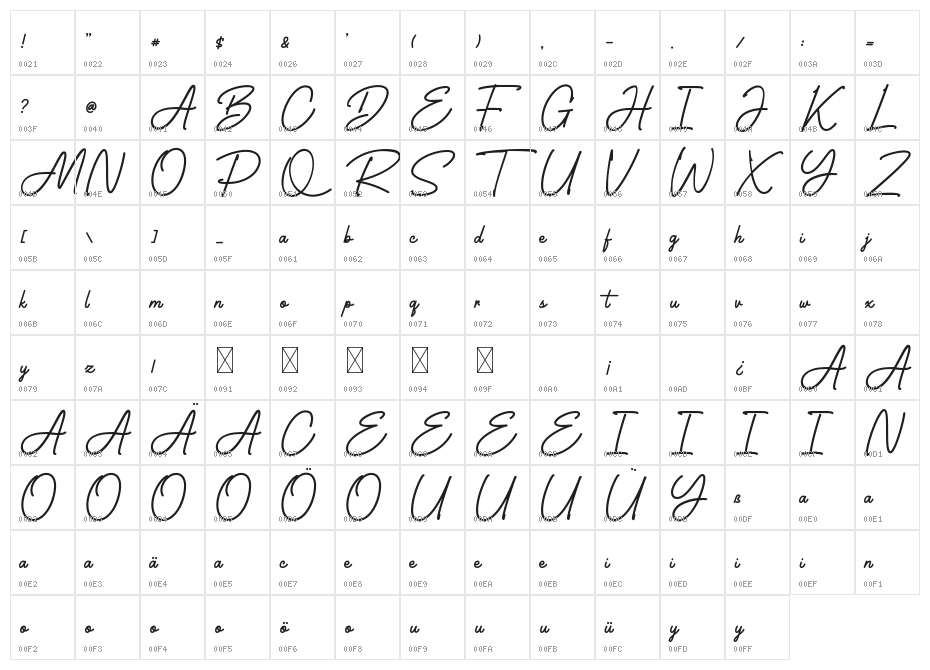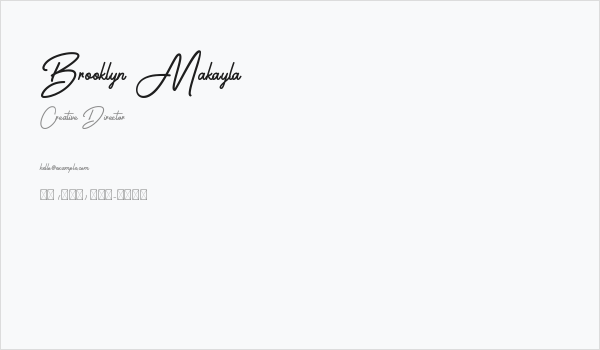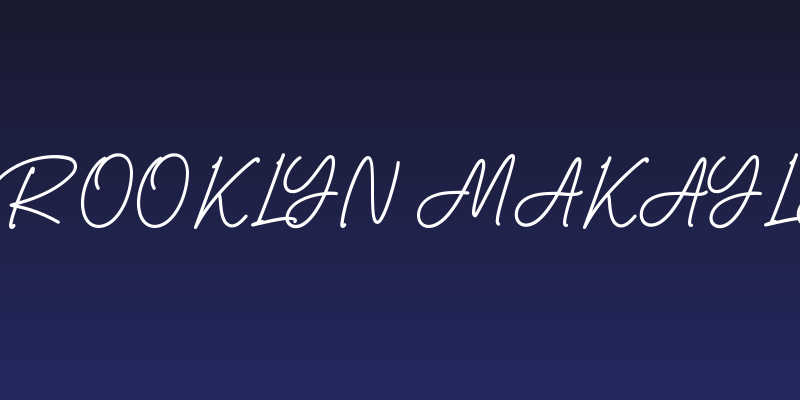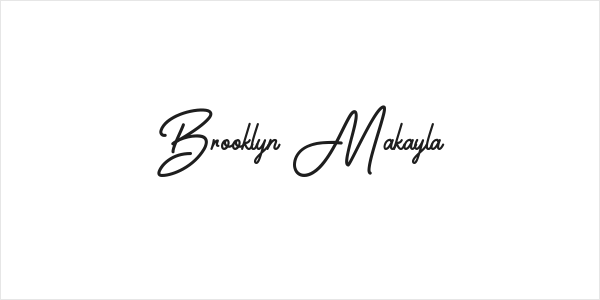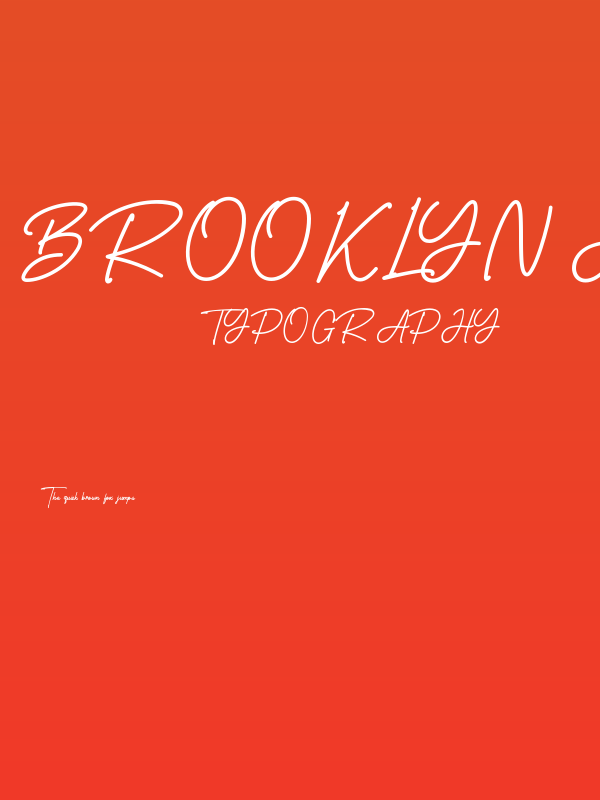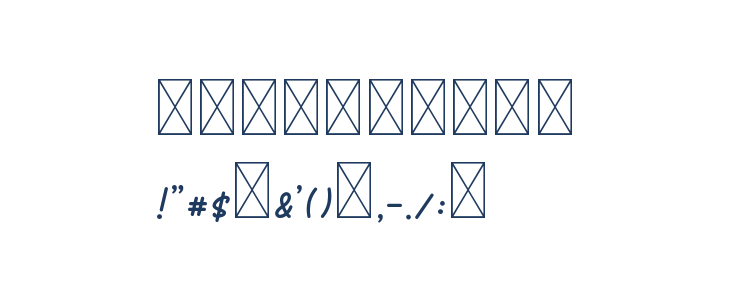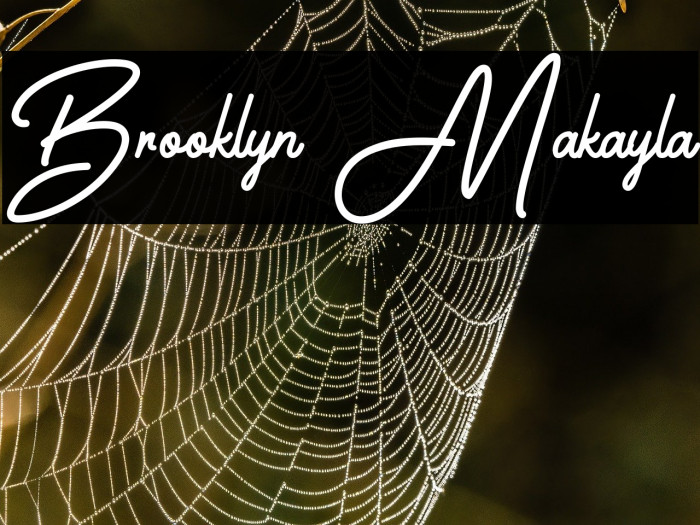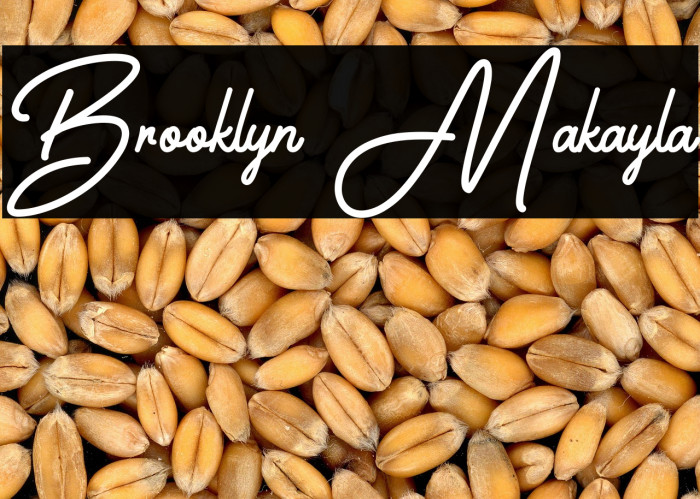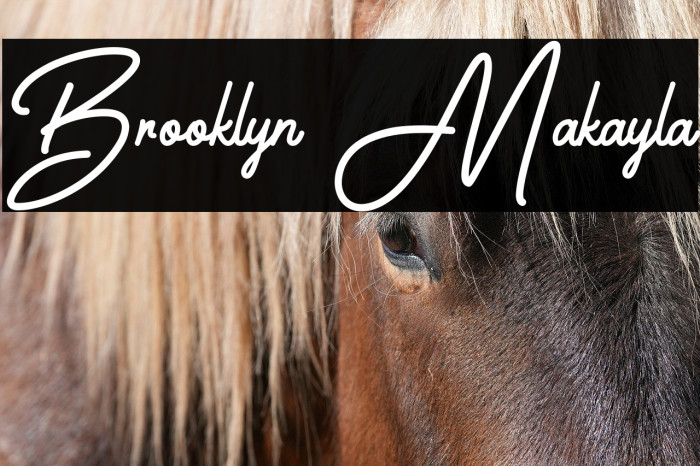
Brooklyn Makayla Font
Brooklyn Makayla Description
This font features a flowing, cursive style that combines elegance with a touch of modern flair. The uppercase letters are tall and slender, with graceful loops and curves that give them a sophisticated appearance. The lowercase letters maintain a consistent flow, enhancing readability while preserving the script's artistic nature. The numerals and special characters are designed to complement the overall aesthetic, ensuring a cohesive look across all text. This font's delicate strokes and smooth transitions make it ideal for projects that require a personal or artistic touch.